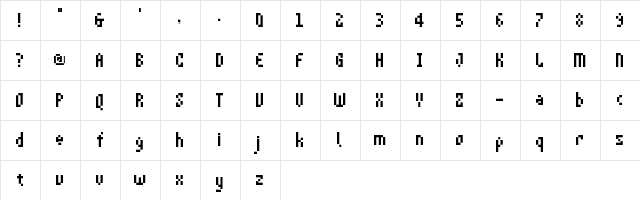
Yarda Px Regular
Design Context for Yarda Px Typeface
Yarda Px offers clean, dependable letterforms without strong stylistic allegiance, making it a practical choice for designers who need flexibility.
Pro Tip: Pair Yarda Px with a font of contrasting weight or personality to build a more expressive typographic hierarchy.